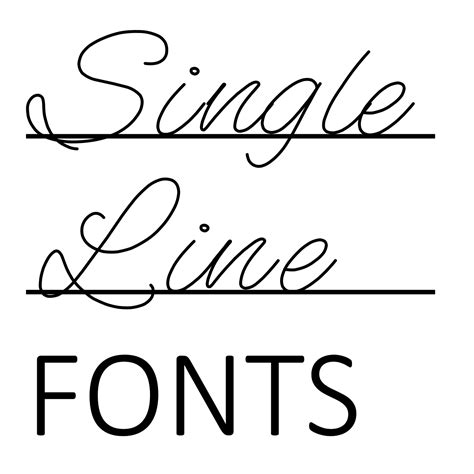
Are you looking for a way to transform your text with beautiful fonts? Do you want to add a touch of personality to your writing without breaking the bank?
Did you know that the right font can add a feeling of authenticity to your writing? It can also make your text look more professional, eye-catching, and unique. So why settle for boring and generic fonts when you can spice up your text with beautiful, single line fonts?
Transform Your Text with Beautiful Single Line Fonts
Are you looking for a way to transform your text into something special? If so, single line fonts could be the perfect solution. These beautiful fonts are perfect for adding a unique look to your text, and they come with a wide variety of options to choose from. Plus, they’re free to download and use!
What are Single Line Fonts?
Single line fonts are a type of font that is designed to be used in a single line of text. These fonts are often used to create titles, logos, and other text elements that need to stand out from the rest of the text. They usually have a minimalist design, with a focus on simplicity and elegance. As a result, they can help to add an element of sophistication to any text that they’re used in.
Benefits of Using Single Line Fonts
Single line fonts can be used for a variety of purposes. For example, they can be used to create an eye-catching title for a blog post or article. They can also be used to create logos or other text elements that need to stand out from the rest of the text. They’re also great for adding a unique look to text, and they’re much easier to read than many other types of fonts.
How to Choose the Right Single Line Font
When it comes to choosing the right single line font, there are a few things to consider. First, you need to decide what type of font you want to use. Do you want a bold font, a thin font, or something in between? You also need to consider the style of font. Do you want a script font, a serif font, or something else? Once you’ve decided on the type and style of font you want, you can then browse the selection of single line fonts available to find the perfect one for your project.
Where to Find Single Line Fonts
How to Use Single Line Fonts
Tips for Using Single Line Fonts
When it comes to using single line fonts, there are a few tips to keep in mind. First, make sure to choose a font that is legible and easy to read. It should be big enough to be seen, but not too big that it takes up too much space. You should also use the font sparingly and make sure that it doesn’t overpower the rest of the text. Finally, make sure to use a font that complements the design you’re creating.
Download Single Line Fonts for Free
If you’re looking for a way to transform your text with beautiful single line fonts, you can find a wide selection of fonts available to download for free. These fonts are perfect for adding a unique look to your text, and they come with a variety of options to choose from. Plus, they’re free to download and use, so you can start transforming your text right away!